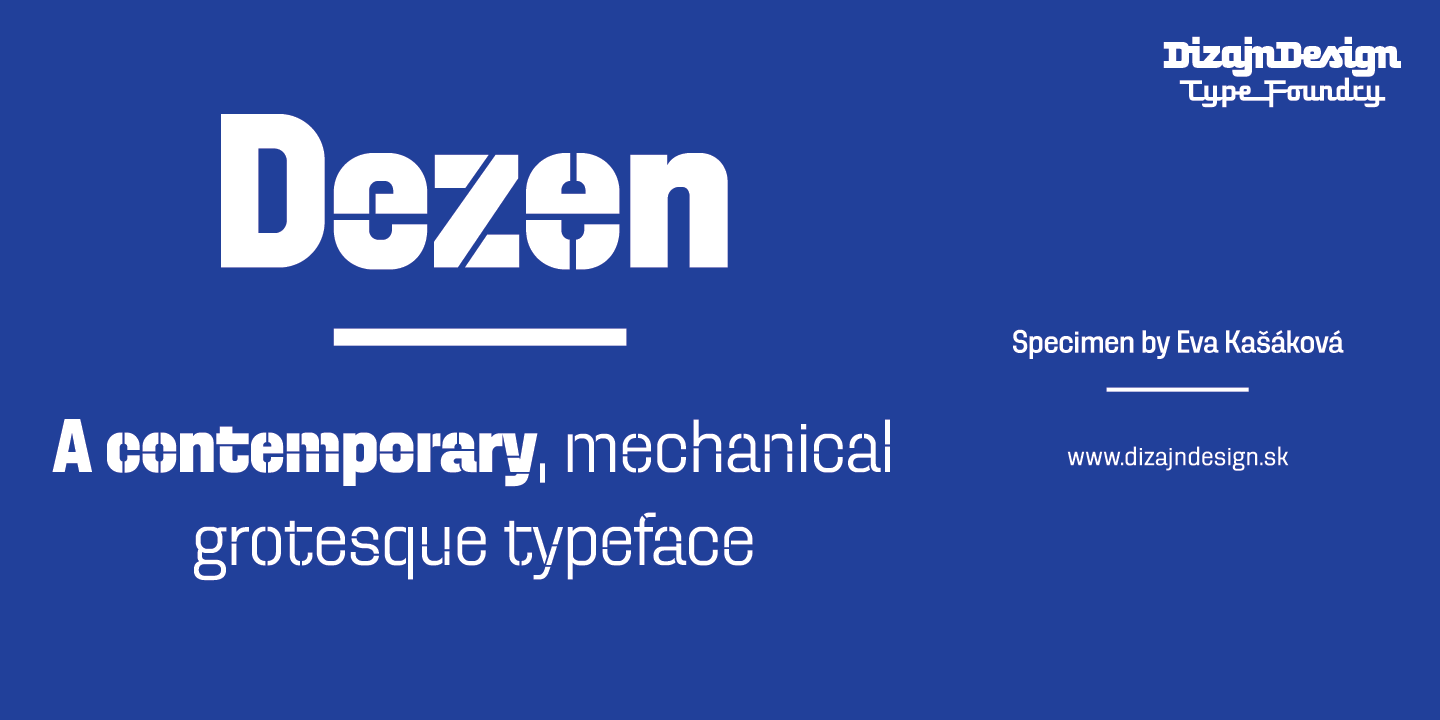
Dezen Stencil 03 Font is perfect for modern industrial branding, contemporary street art projects, urban design studios, architectural visualization, cutting-edge signage systems, progressive manufacturing companies, modern stencil art galleries, innovative packaging design, and any project requiring typography with contemporary stencil precision and industrial design sophistication.
What makes Dezen Stencil 03 Font exciting is its contemporary precision that captures the evolution of traditional stencil design into a sophisticated modern art form with letterforms that balance industrial functionality with refined aesthetic appeal and contemporary design sensibilities. This innovative typeface embodies the progressive spirit of modern stencil applications with clean construction that maintains the practical benefits of traditional stenciling while elevating the visual impact through carefully considered proportions and contemporary styling. The font's modern character and industrial sophistication make it perfect for brands celebrating design innovation, urban culture, and the artistic transformation of utilitarian typography into contemporary visual expression.
The Dezen Stencil 03 Font family includes regular and bold weights, featuring complete uppercase and lowercase alphabets, numerals, punctuation marks, and contemporary stencil elements. The font maintains consistent modern elegance throughout all weights while ensuring optimal visibility for both striking headlines and detailed contemporary text applications in design and industrial contexts.
Whether you're designing for modern architecture firms, creating urban art materials, or developing contemporary industrial branding with stencil aesthetics, Dezen Stencil 03 Font Free Download delivers unmatched modern authority and industrial sophistication to your projects. This exceptional typeface transforms ordinary text into powerful expressions of contemporary design that honor the functional heritage of stencil typography while embracing the aesthetic possibilities of modern industrial design. The font's contemporary character makes it ideal for design studios, manufacturing companies, and urban culture brands. Download this remarkable font today and bring the cutting-edge elegance of modern stencil design to your design projects with authentic contemporary sophistication and dezen-inspired innovation.